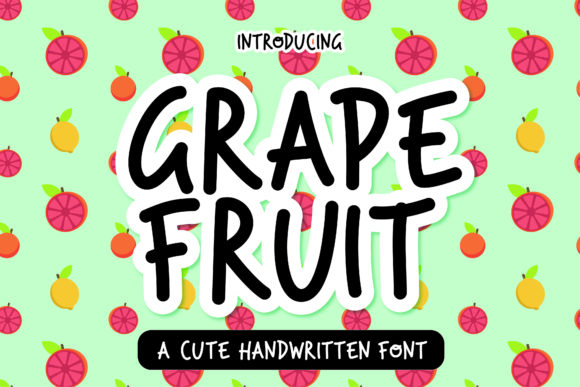
Dive into the world of Grape Fruit, a magical script font that oozes charm and playfulness. Let your imagination soar as you explore the endless possibilities this delightful font presents. With its youthful innocence and irresistible charm, Grape Fruit is the perfect companion for any creative project that seeks to capture joy and lightheartedness.
Whether you're a seasoned graphic designer or just starting your creative journey, Grape Fruit is the font you never knew you needed. Its versatility knows no bounds, making it the ideal choice for a wide range of design projects. From whimsical greeting cards to eye-catching social media posts, from captivating presentations to enchanting digital designs, Grape Fruit has the power to transform your words into works of art.
Step into a realm of visual delight as you witness Grape Fruit's ability to add a touch of magic to any project. Its enchanting curves and playful strokes dance across the page, creating an aura of positivity and warmth that is sure to captivate your audience. Experience the joy of crafting designs that exude happiness and leave a lasting impression.
With Grape Fruit by your side, you'll discover a new level of creative freedom. Its delightful character adds a personal touch to your designs, making them stand out from the crowd. Embrace the power of Grape Fruit and unlock the potential for truly remarkable creations.
So, embark on this extraordinary journey with Grape Fruit, your trusty companion in the world of design. Let your creativity flourish as you explore the infinite possibilities this charming font has to offer. Welcome Grape Fruit into your design arsenal and witness the transformation it brings to your projects.